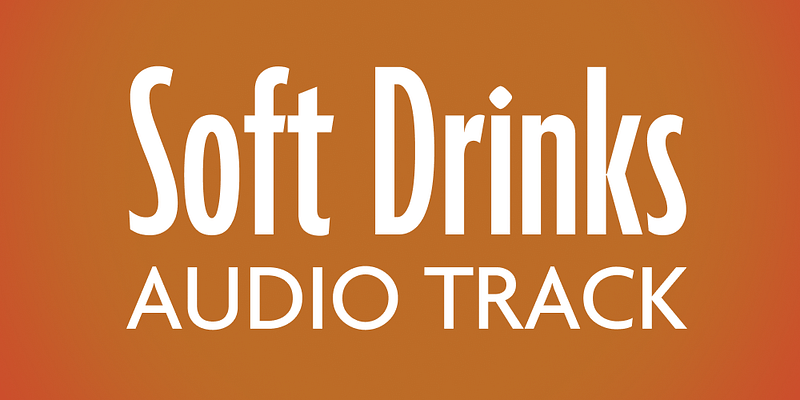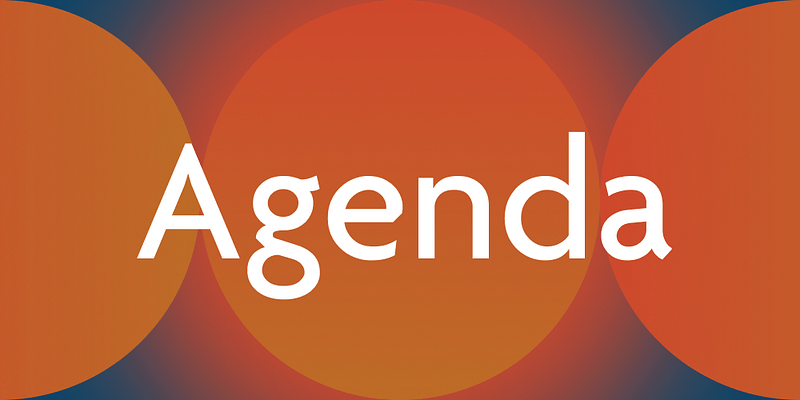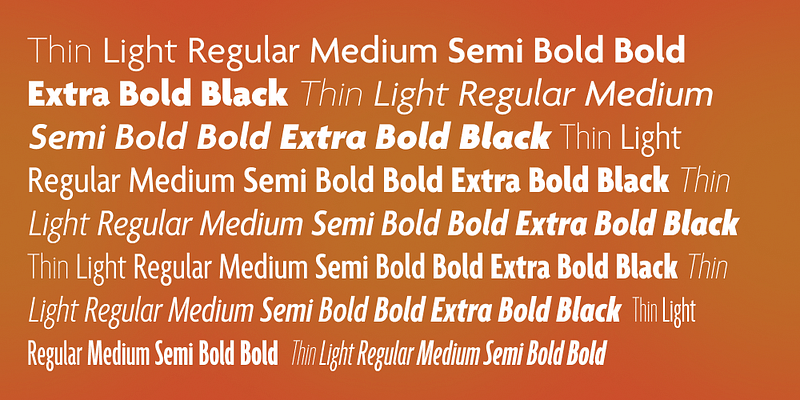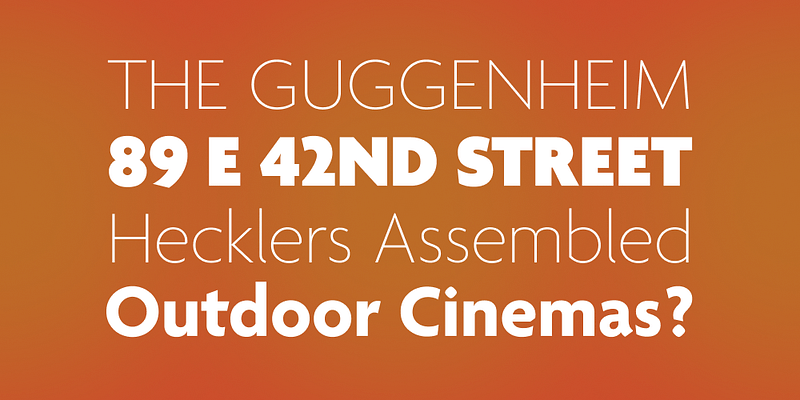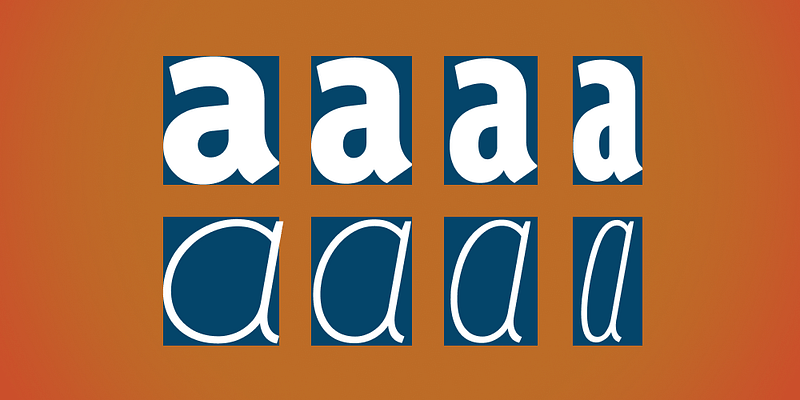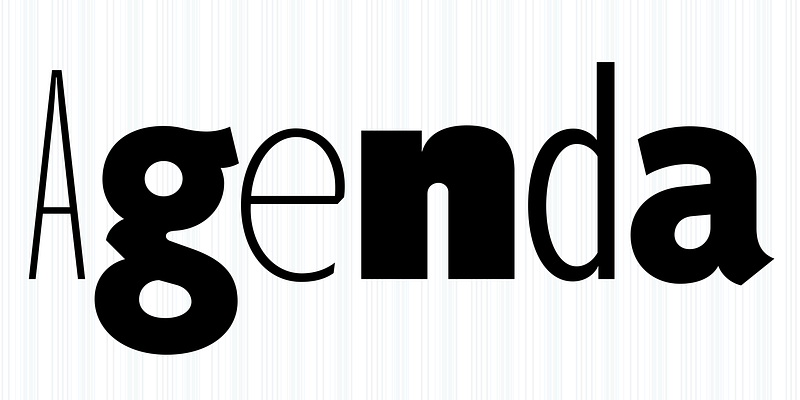
Agenda is one of the iconic typefaces of the nineties. The extensive family was completely overhauled and relaunched as Agenda One. The pristine, sleek humanistic sans is a typographic all-in-one solution in Regular, Condensed, Extra Condensed, and Compressed widths and weights ranging from Thin to Black.
There are enough slight differences in Agenda One that a document set in current Agenda retail will likely reflow just from the slight character widths when changed to Agenda One. Reflows for headlines and larger type are less likely in the wider styles and more likely in the narrower styles but guaranteed for text sizes. Because of other design differences, such as tighter top accents and entirely new kerning, users will almost certainly want to adapt their layouts to the much more satisfying Agenda One details.
Greg Thompson
Greg Thompson is an American typeface designer.
In the late 1980’s he converted a series of existing typefaces to PostScript for forward-looking corporate clients. In 1989 Greg began designing original typefaces for the new retail font market. He formed a decades-long association with The Font Bureau of Boston, and in 2016 launched his own foundry on Type Network.
Greg’s typefaces are part of the visual landscape in: branding, retail product packaging, especially food and cosmetics, restaurants, entertainment, including gaming, music and movie retail packaging and titles, book and magazine covers, and rental housing complexes.